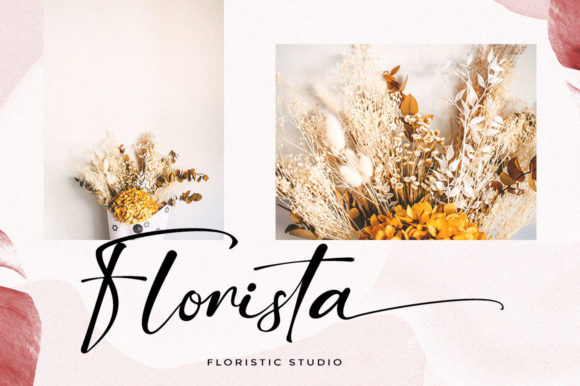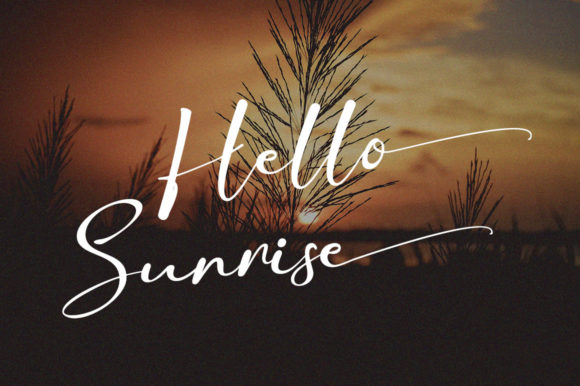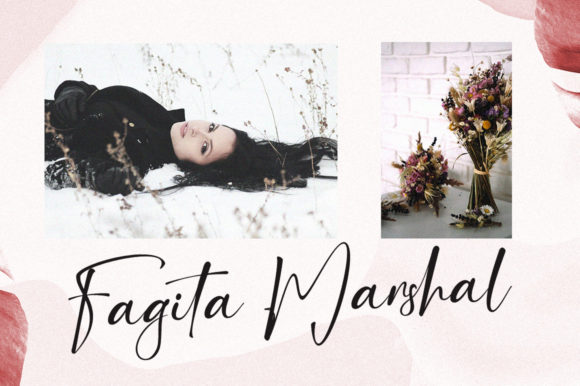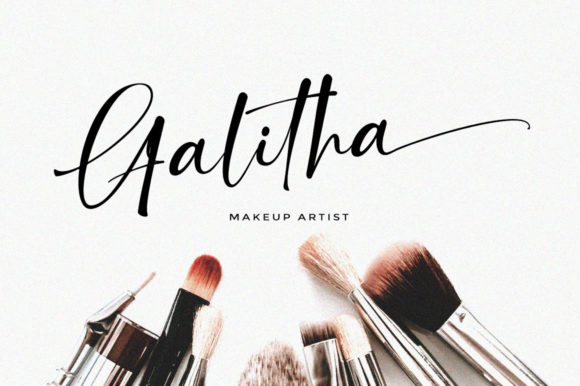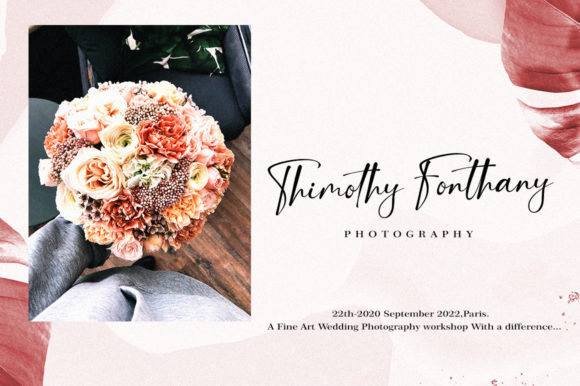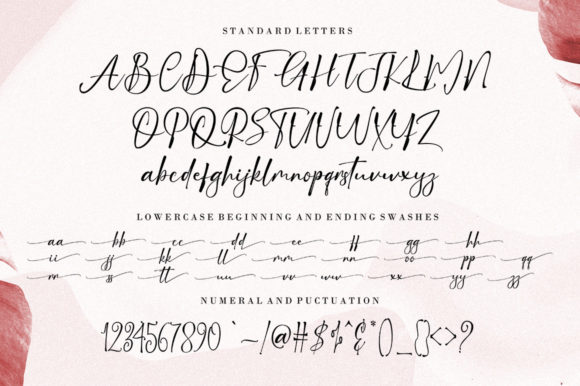
Golding Signature Font: Elevate Your Designs with a Laid-Back Script Style
Are you looking for a font that can add a touch of elegance and sophistication to your designs? Look no further than the Golding Signature Font. This beautiful script font is perfect for designers and crafters who want to create stunning visual content with a laid-back, yet stylish vibe. In this article, we’ll dive into the features and benefits of Golding Signature Font, and explore how you can use it to take your designs to the next level.
What is Golding Signature Font?
Golding Signature Font is a laid-back script font that features versatile characters that seem to dance along the baseline. The font is designed to give your text a carefree, yet stylish feel that’s perfect for a wide range of design projects. Whether you’re creating a logo, branding materials, or social media graphics, Golding Signature Font is a great choice.
Key Features of Golding Signature Font
So, what makes Golding Signature Font so special? Here are some of its key features:
- PUA Encoded: Golding Signature Font is PUA (Private Use Area) encoded, which means you can access all of the amazing glyphs and ligatures with ease. This makes it easy to use the font in your designs, even if you’re not a professional typographer.
- Laid-Back Script Style: The font features a laid-back script style that’s perfect for creating a relaxed, yet stylish vibe in your designs.
- Versatile Characters: The characters in Golding Signature Font are designed to be versatile, with a range of glyphs and ligatures that can be used to create unique and interesting text effects.
Benefits of Using Golding Signature Font
So, why should you choose Golding Signature Font for your designs? Here are some of the benefits of using this beautiful script font:
- Elegant and Sophisticated: Golding Signature Font adds a touch of elegance and sophistication to your designs, making it perfect for high-end branding and marketing materials.
- Unique and Creative: The font’s laid-back script style and versatile characters make it easy to create unique and creative text effects that will set your designs apart.
- Easy to Use: Golding Signature Font is PUA encoded, making it easy to use in your designs, even if you’re not a professional typographer.
- Versatile: The font is perfect for a wide range of design projects, from logos and branding materials to social media graphics and more.
How to Use Golding Signature Font in Your Designs
Using Golding Signature Font in your designs is easy. Here are some tips to get you started:
- Pair it with Other Fonts: Golding Signature Font pairs well with other fonts, such as sans-serif fonts like Arial or Helvetica. Experiment with different font combinations to find the perfect look for your design.
- Use it for Headings and Titles: The font is perfect for headings and titles, where you want to make a bold statement. Use it to add a touch of elegance and sophistication to your text.
- Experiment with Glyphs and Ligatures: Golding Signature Font features a range of glyphs and ligatures that can be used to create unique and interesting text effects. Experiment with different glyphs and ligatures to add some personality to your text.
Golding Signature Font is a beautiful script font that’s perfect for designers and crafters who want to add a touch of elegance and sophistication to their designs. With its laid-back script style, versatile characters, and PUA encoding, this font is easy to use and perfect for a wide range of design projects. Whether you’re creating a logo, branding materials, or social media graphics, Golding Signature Font is a great choice. So why not give it a try and see how it can elevate your designs?